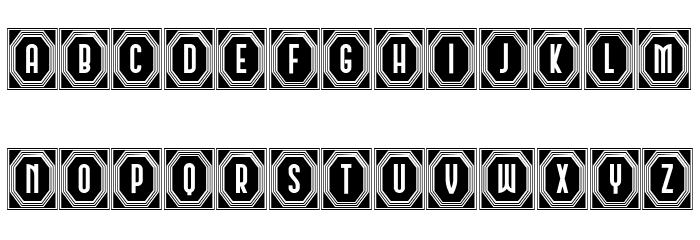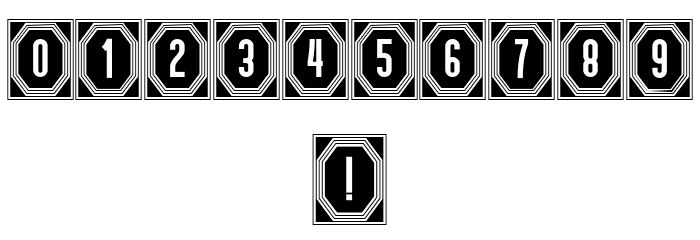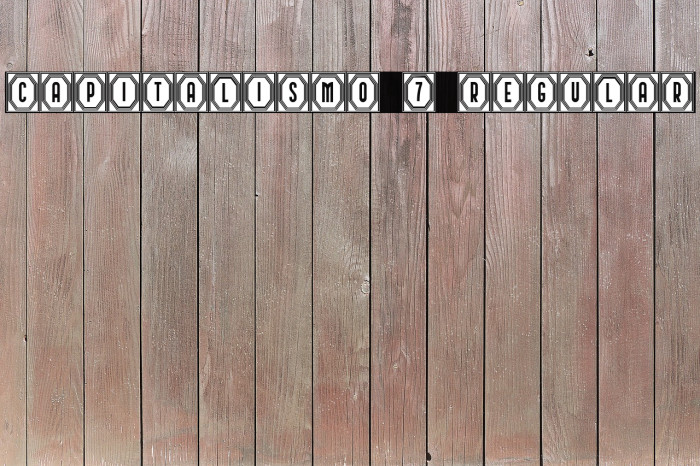
Capitalismo 7 Regular Font
This font features a bold, geometric design with each character enclosed in a distinctive octagonal frame. The letters and numbers are presented in a block style, with thick lines and a strong presence. The use of a black background with white lettering creates a striking contrast, making each character stand out prominently. The font's unique framing and boldness give it a decorative and eye-catching appearance, suitable for projects that require a strong visual impact. The consistent use of geometric shapes throughout the design adds a modern and structured feel.
A bold, geometric font with characters enclosed in octagonal frames, offering a striking visual impact.
- Proposed Projects: Ideal for poster designs, branding projects, and any creative work that requires a bold and decorative typeface.